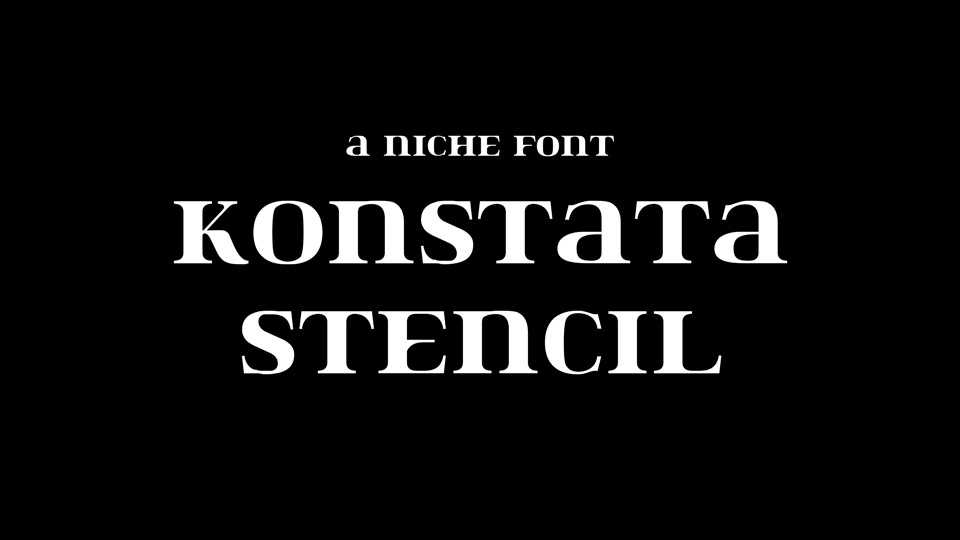
Download Konstata Stencil, a niche font borders between being somewhat grungy, modular and classic. Created for use as stencil for signage it features a set of only 10 different elements out of which you can compose the complete typeface.
Designer: Fontom Type